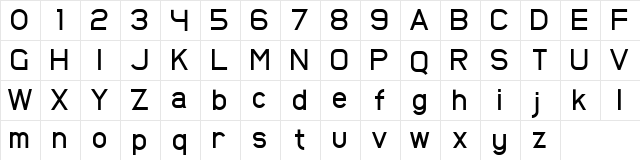
Broder Bold Regular
| Designer | Iqrologo |
Design Context for Broder Bold Typeface
Broder Bold takes a measured approach to typography — its balanced proportions and neutral character make it a reliable workhorse for both digital and print work. The heavy weight commands attention and anchors typographic hierarchies.